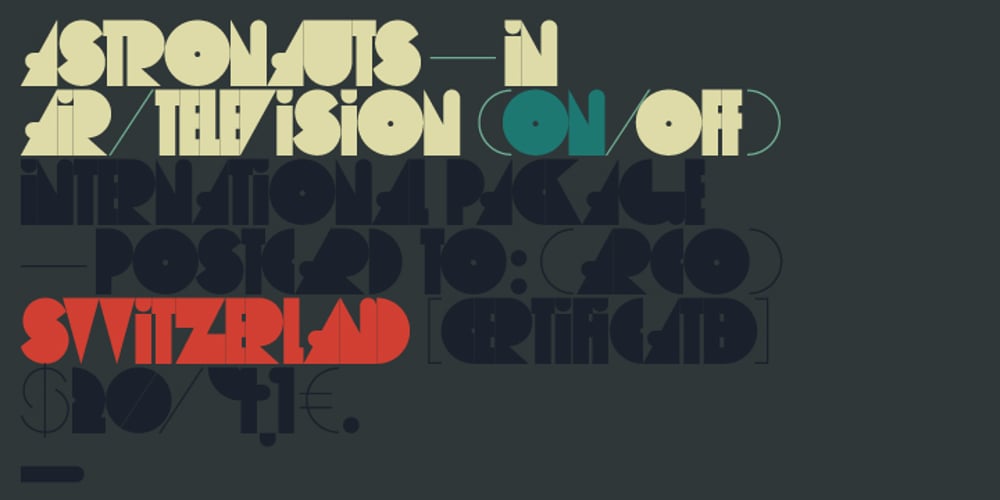
Arco Font Family was designed by published by Nicolas Massi. Arco contains 2 styles and family package options. Arco is a brand new fat-face with some geometrical tweaks grabbing fresh and ideal for fashion editorial headlines. Arco also combines elegant symbols to sweet contrast. Normal & Outline version.